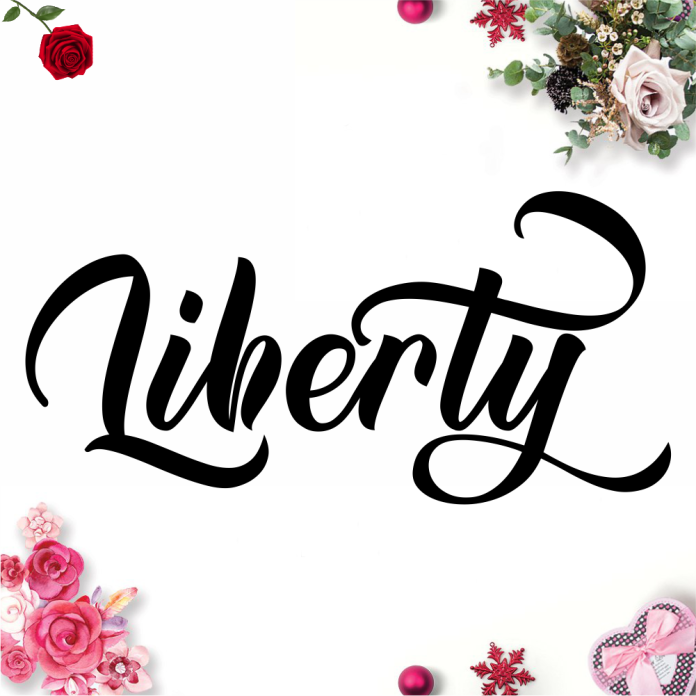
Liberty Script Font is a elegant and sophisticated script font with flowing, cursive strokes. Its key features include intricate swirls and loops, making it perfect for invitations, branding, and any design projects that require a touch of elegance and femininity. This font adds a timeless and romantic feel to any project.